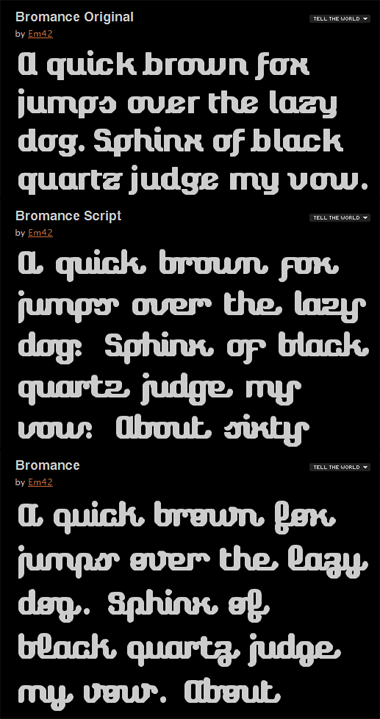
This is fabulous.!… er, I mean… This rocks, bro. I’m a big fan of beefy scripts to begin with, but I love the unique “struct”-ure of this. The l, f, x, k, and W are inspired. I must admit I'm not entirely sold on the “s” yet, but I think you have the right idea. Well done! 10/10
A very nice script - bold yet sinuous.
Awesome.
Very nice! I love it :)
I agree with fugitiveglue, ths 's' should be review... in a script font you can go over the x height
for the small loop of the s
very good work
@Fugitiveglue & Upixel: I know the "s" looks cropped at its top, but I was not able to find a round top connecting smoothly with the curve on the left and the straight diagonal on the right.
I had the same issue with the V, W, Z, v, w and 7, and I opted for straight lines there as well.
My motto is: put into evidence the limitations of the design, instead of trying to hide them.
Above the different stages of Bromance (still in my private lab). Bromance Original dates back to last October.
I can see the merits of all three versions of the 's' in your sample. Maybe include the others as alternates?
@Aphoria: I'm glad you appreciate the different versions of Bromance, but I see them more like an evolution than as alternate versions.
I love the final version